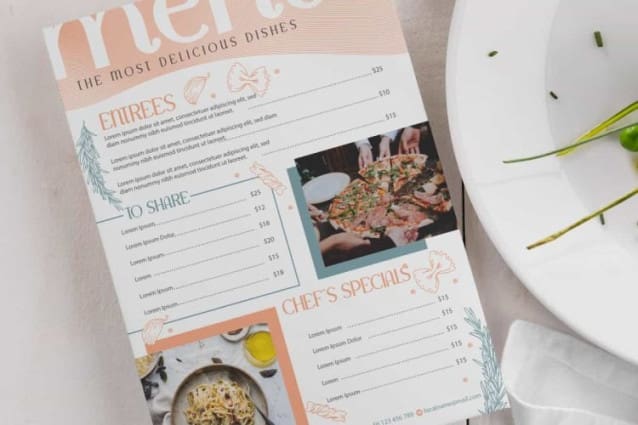
Richard Soul Font
Richard Soul Font is a stylish serif display font by Edric Studio. This font has a simple yet eye catchy style, can be read clearly and can be paired with other types of fonts. It will be suitable for any business, such as accessories, cafe, entertainment, fashion, florist, furniture, photography, printing, publishing, restaurant, spa and clinic, writer, and many more!
Richard Soul Font comes with full set of Uppercase and Lowercase Basic Characters, Number, a large range of Punctuation, and Symbol. It has modern characters set, perfectly managed with well spaced and kerning. Richard Soul Font will be able to complement for any design (with extended license) including: brand image, cover, custom design, invitation, label, merchandise, packaging design, poster, quote, screen print, signage, stationery, sticker, title, website page, etc.